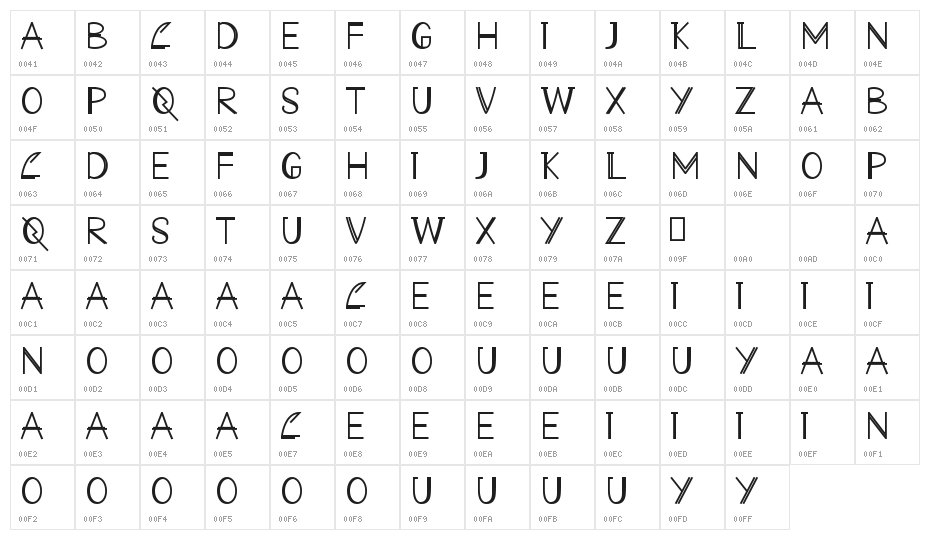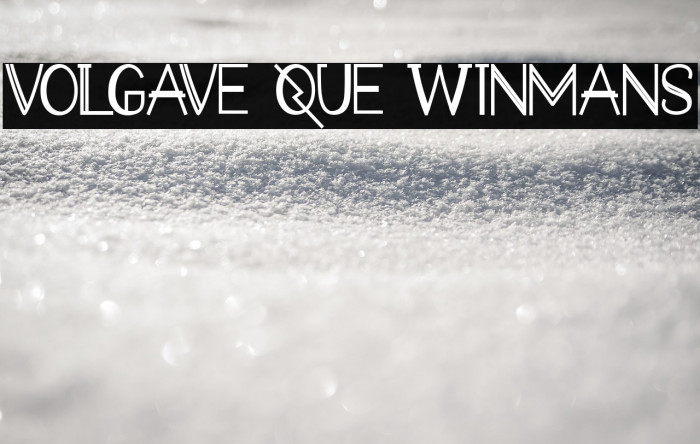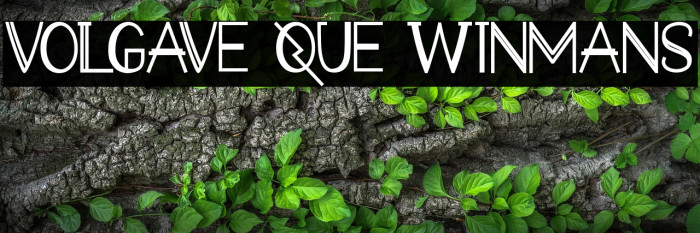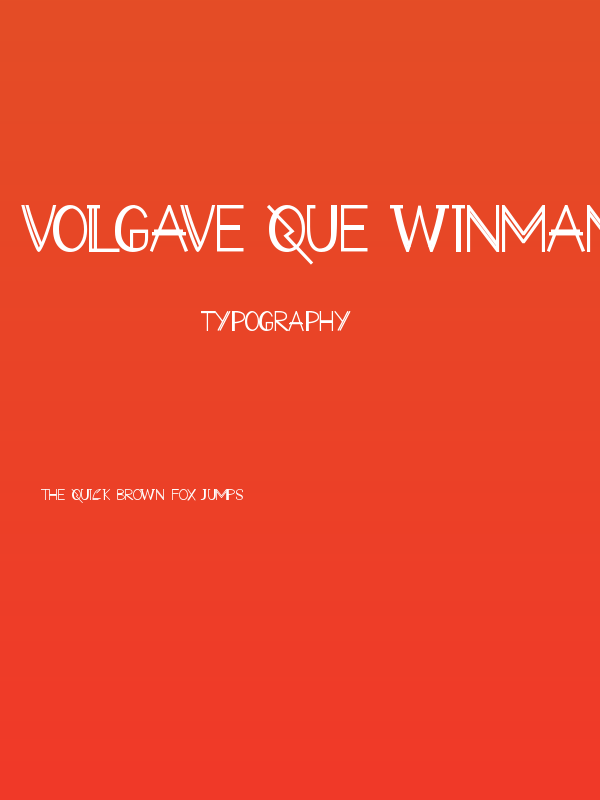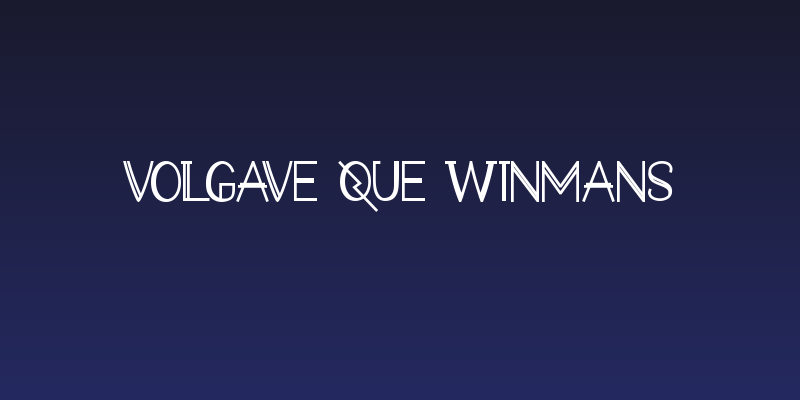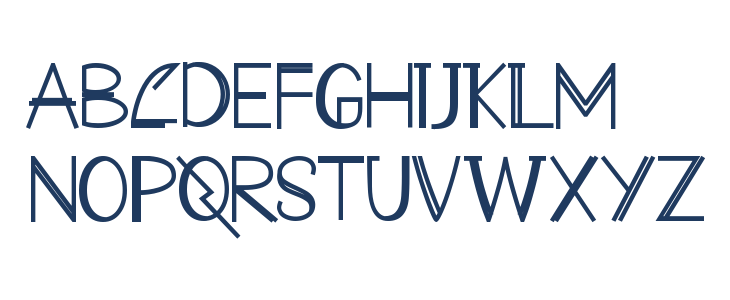
VOLGAVE QUE WINMANS Font
VOLGAVE QUE WINMANS Description
This font features a unique and modern design with geometric elements and clean lines. The uppercase letters exhibit a blend of sharp angles and curves, creating a distinct and stylish appearance. The characters are evenly spaced, contributing to a balanced and harmonious look. The font's design is both bold and sophisticated, making it suitable for contemporary projects that require a touch of elegance and creativity. Its distinctive style can capture attention while maintaining readability, making it versatile for various design applications.
| Proposed Projects | Ideal for branding, logos, headlines, and modern web design projects. |